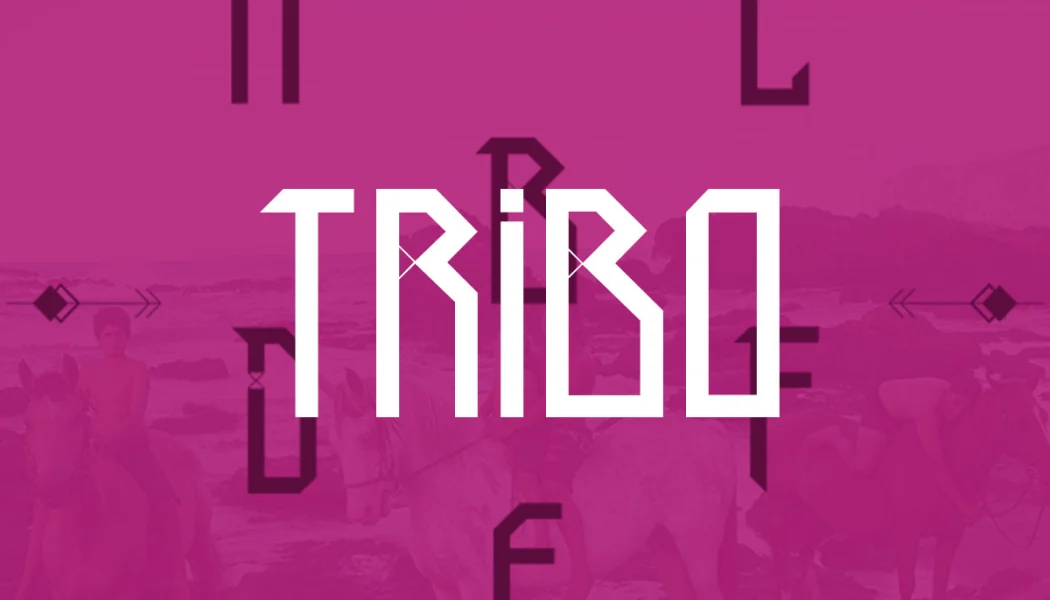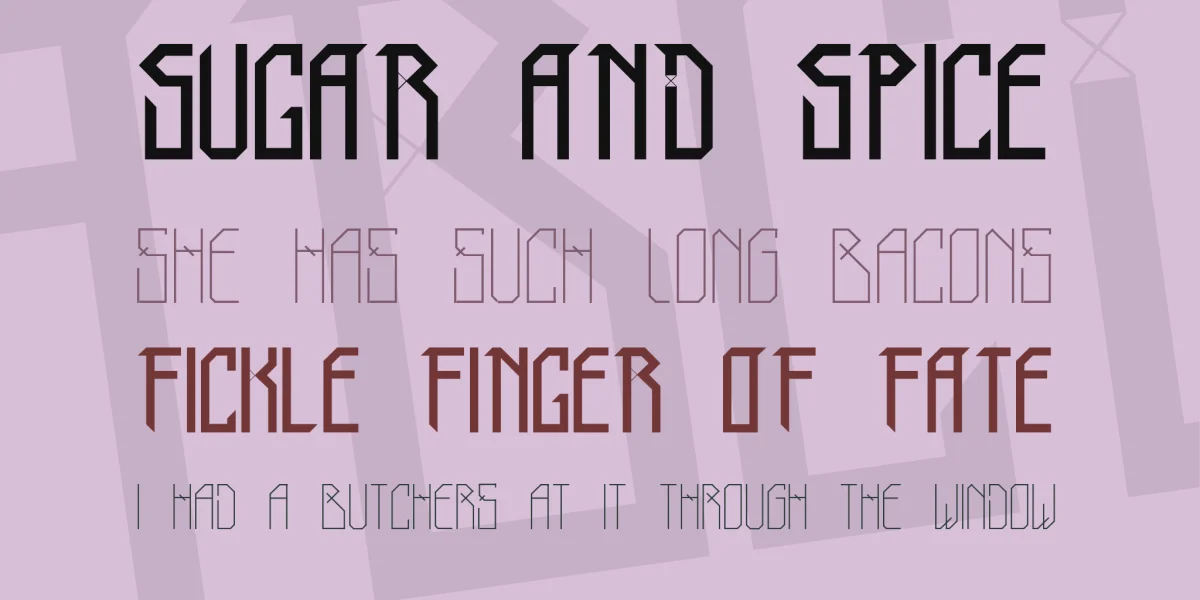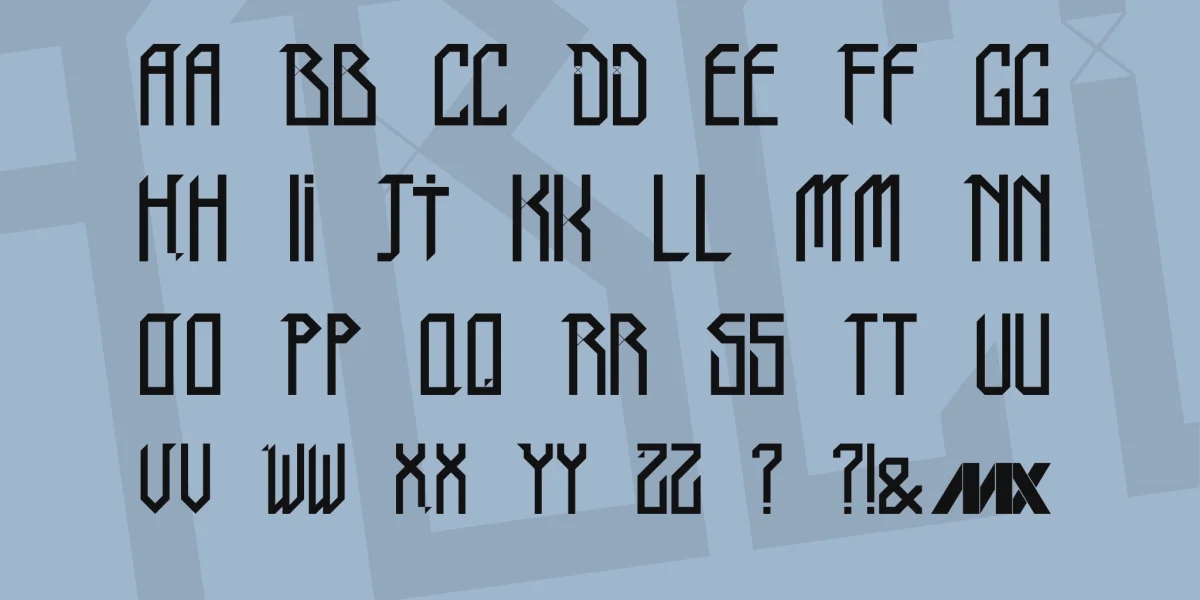
Original font inspired by tribal designs. All uppercase letters. Can be used for headings, titlecards, etc. E-mail me at  if you're going to use it for a design! I'd love to see some. Thank you.